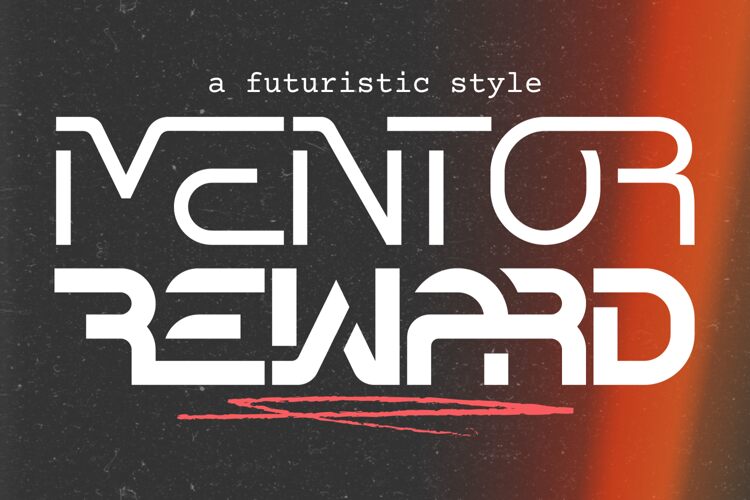
Mentor Reward Demo Regular
Mentor Reward font by 177Studio is a minimalist techno display font that embodies a modern aesthetic with its futuristic, geometric, and structured design. This free font balances clean lines with captivating simplicity to create an appealing yet subtle appearance in each of its glyphs.
Apply Mentor Reward in designing the logo or branding for your business in technology. Additionally, it would be perfect for packaging design, advertisements and posters, magazine and newspaper headlines, book covers and pages inside books typically novel chapter starts. Other possibilities of use may include web and app fonts, printed products like CDs or other merchandise.